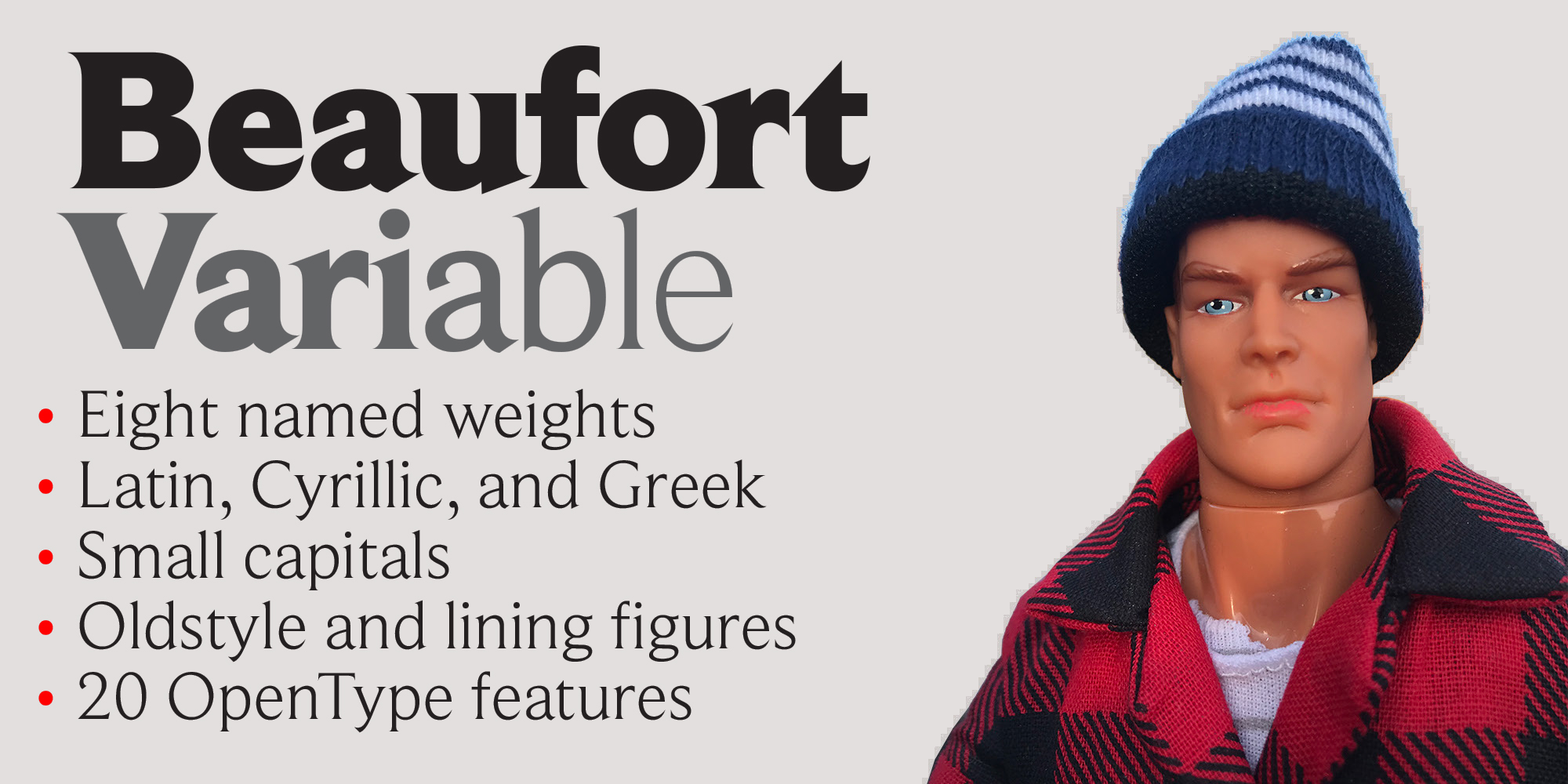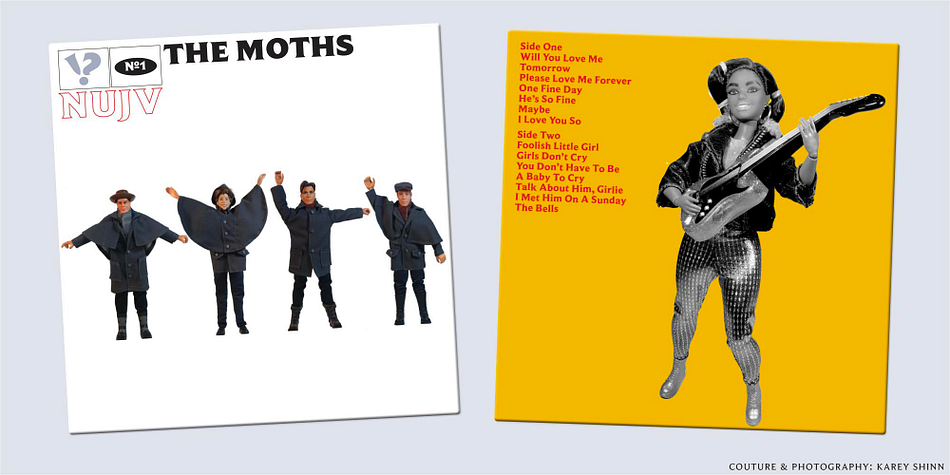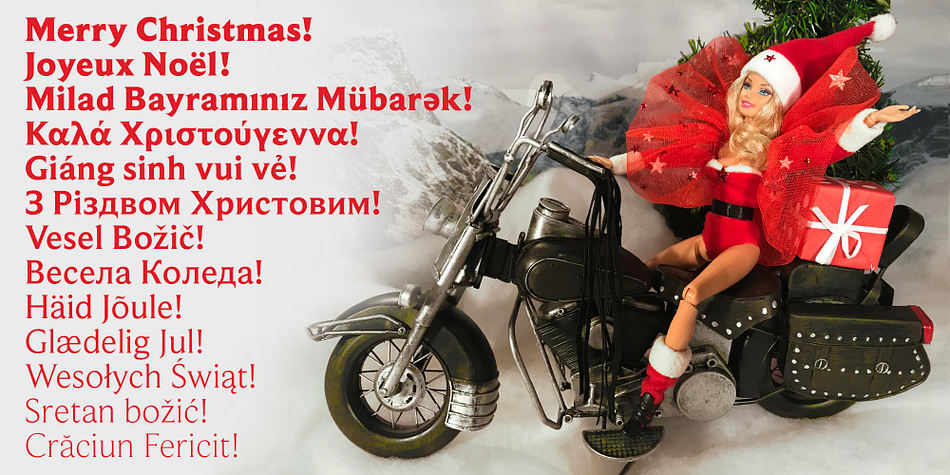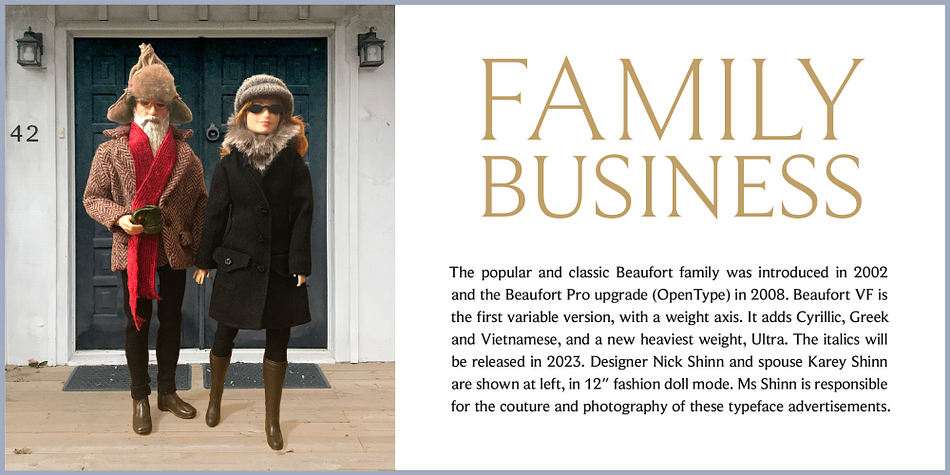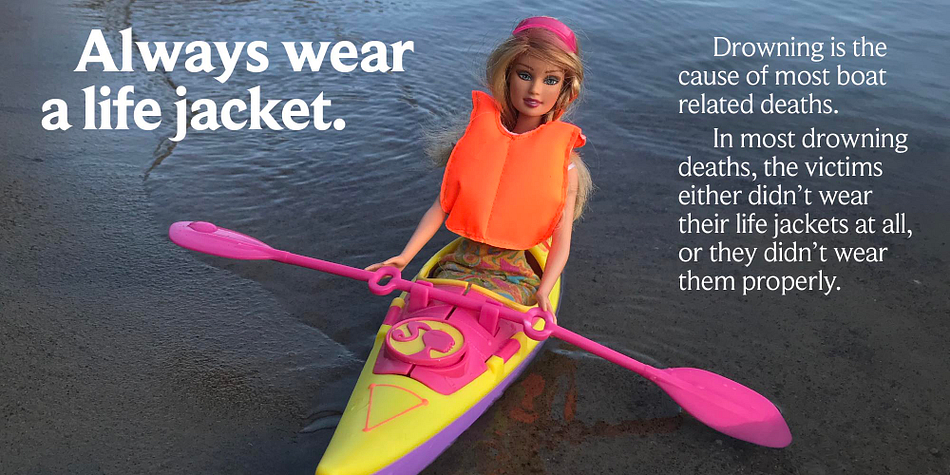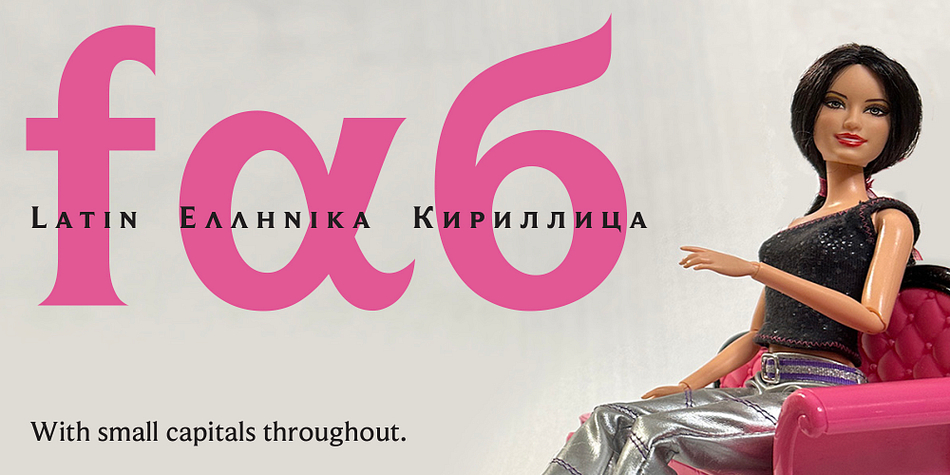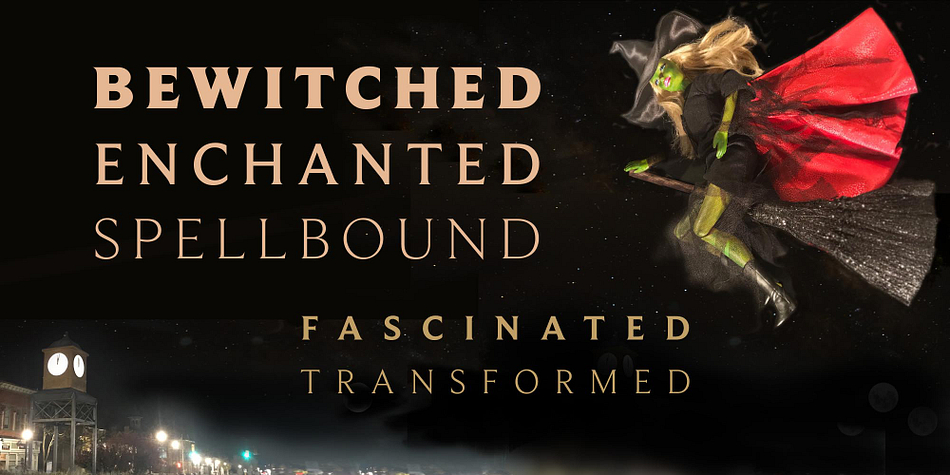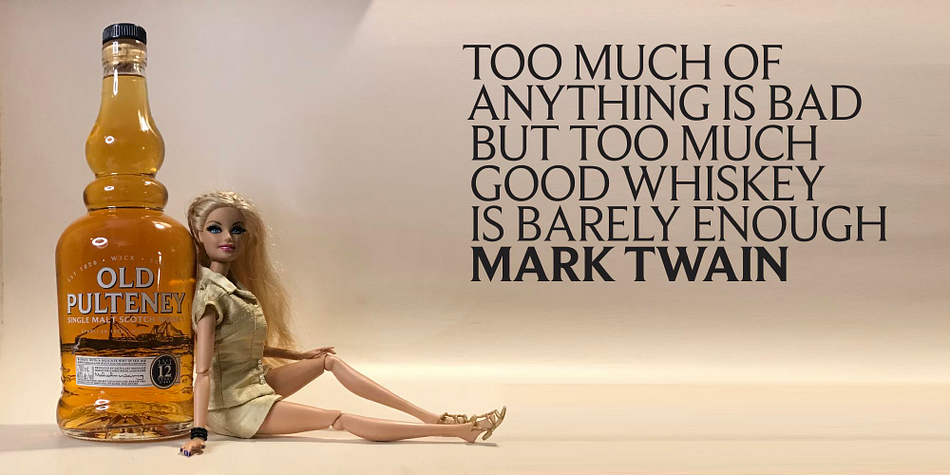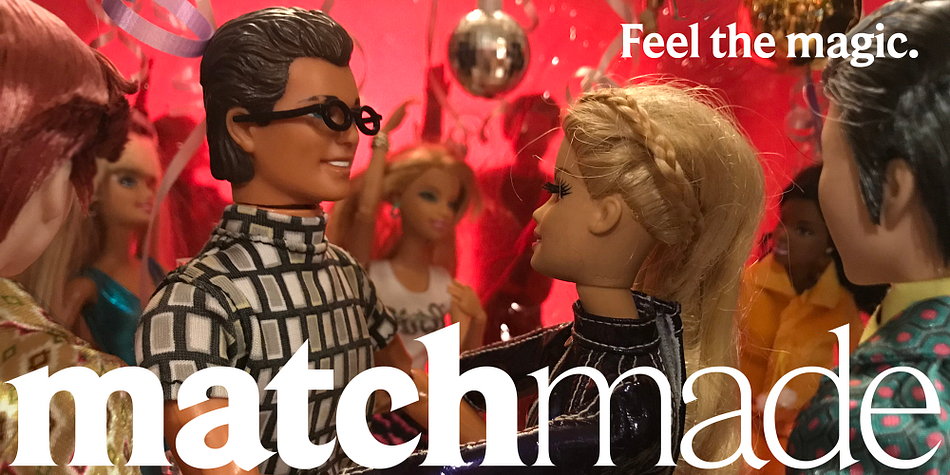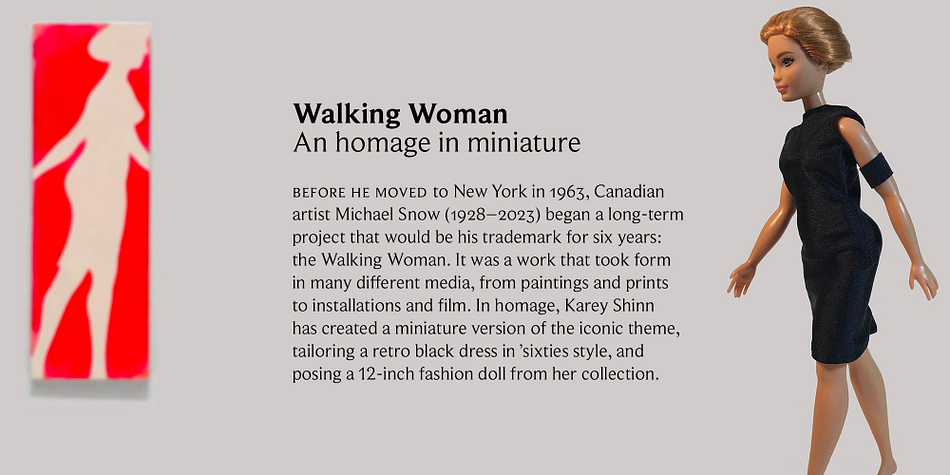
Beaufort VF
Designed by Nick Shinn, Beaufort VF is a serif font family published by Shinntype.
One font, 701 weights. Now, the ultra-legible, super-classy typeface with the always-sharp serifs and OpenType features galore provides 701 weights, from Extra Light (200) to Ultra (900), all in a single variable font.
Not merely a format upgrade, Beaufort Variable adds a new heaviest weight, Ultra, and extended language support, with Greek and Cyrillic scripts and more Latin—most notably Vietnamese.